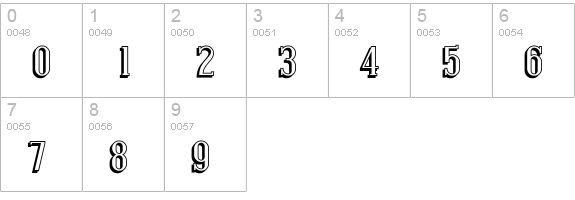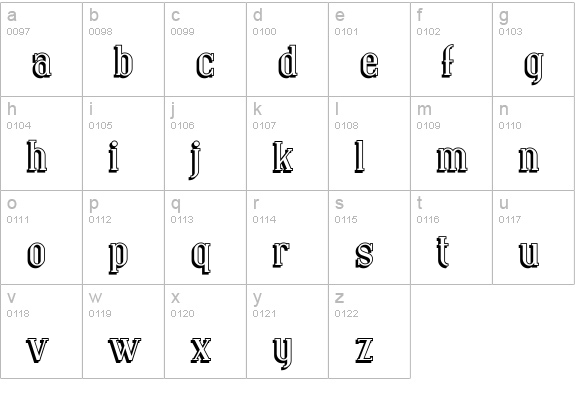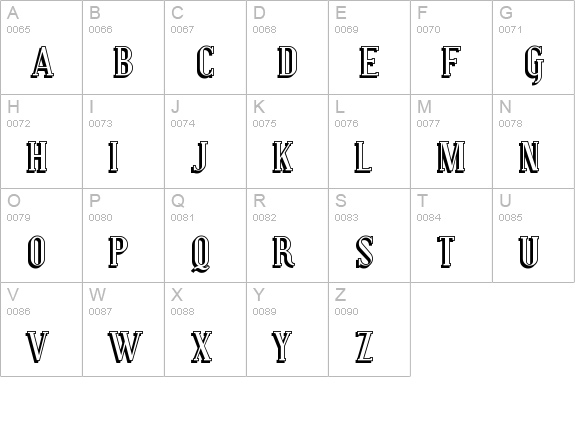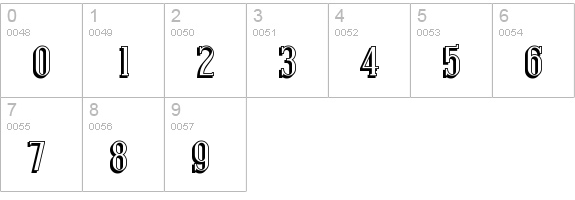
Covington Shadow font is a stylish and elegant typeface that exudes sophistication and charm. With its delicate curves and intricate details, this font is perfect for adding a touch of class to any design project. The shadow effect adds depth and dimension, creating a visually striking appearance. Best of all, Covington Shadow font is completely free to download at FontsMarket.com. Whether you're working on a personal project or a professional design, this font is sure to make a lasting impression. Don't miss out on the opportunity to enhance your creations with the timeless beauty of Covington Shadow font. Download it today and let your creativity shine!